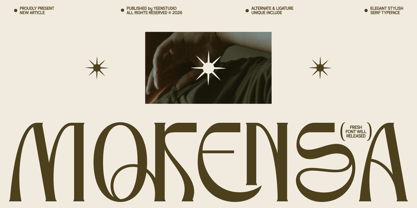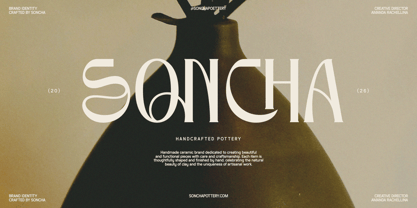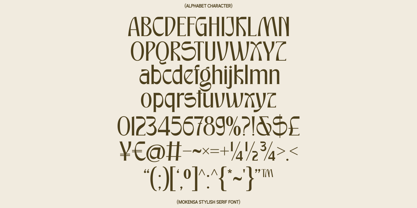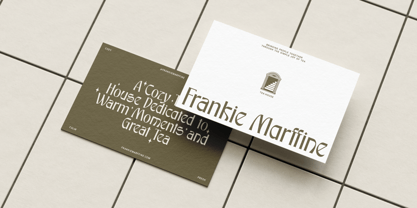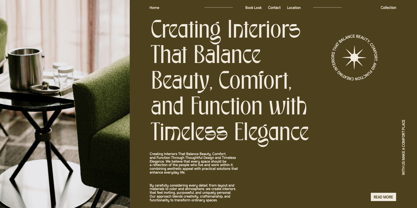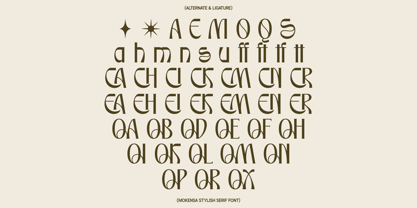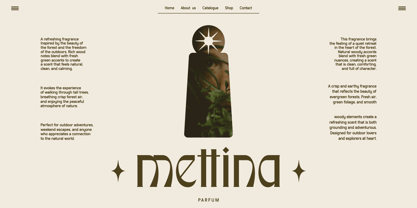
Mokensa
von Yeen Studio
Die Schriftfamilie Mokensa wurde von Wahyudi Mokoagow entworfen und von Yeen Studio veröffentlicht. Mokensa enthält 1 Stile. Mehr über diese Familie
Mokensa is a decorative serif display font characterized by tall, narrow letterforms and a gentle Art Nouveau-like rhythm. Its characters feature rounded bowls, thin internal curves, wedge-shaped terminals, and sharp vertical cuts, creating a formal yet ornamental appearance. The uppercase set has an architectural feel, while the lowercase letters maintain a lighter, more fluid texture. Alternates and ligatures provide additional variation for initials, paired letters, and decorative word settings. Due to its stylized shapes and close spacing, Mokensa is best suited for logos, packaging, posters, titles, invitations, and branding accents rather than long body text.
Designer: Wahyudi Mokoagow
Foundry: Yeen Studio